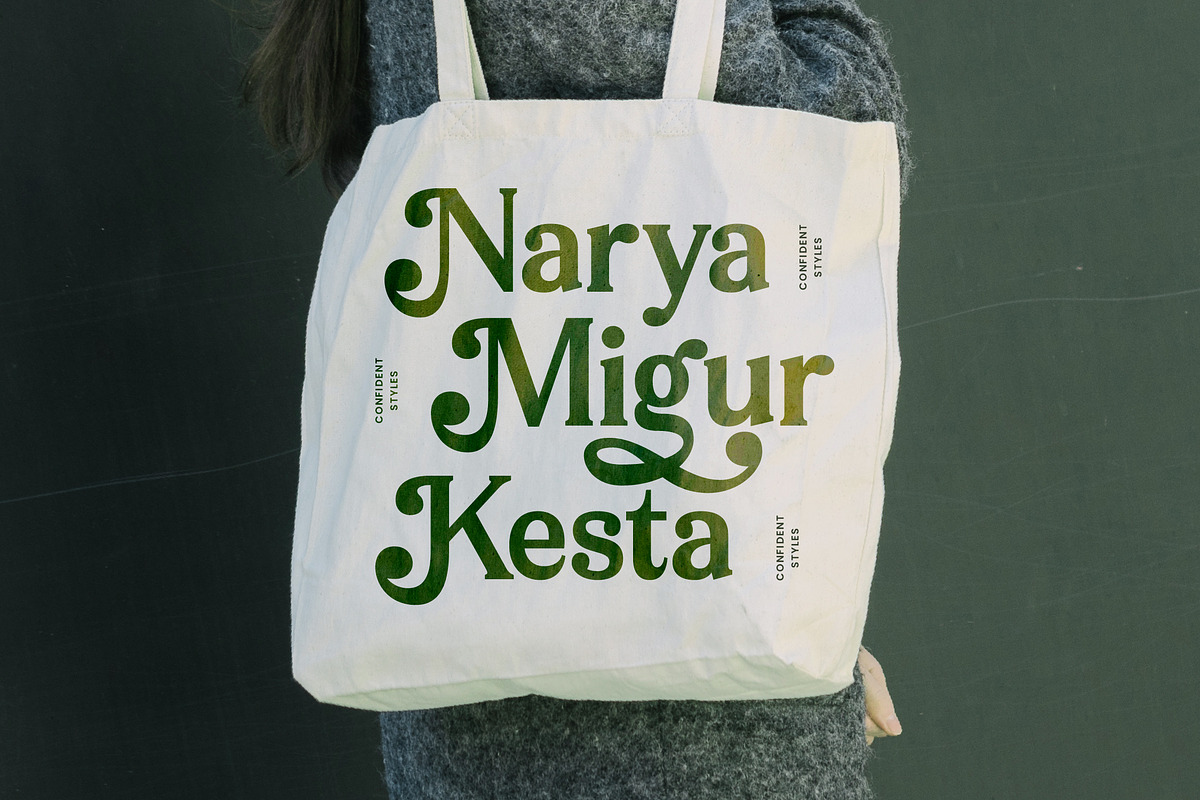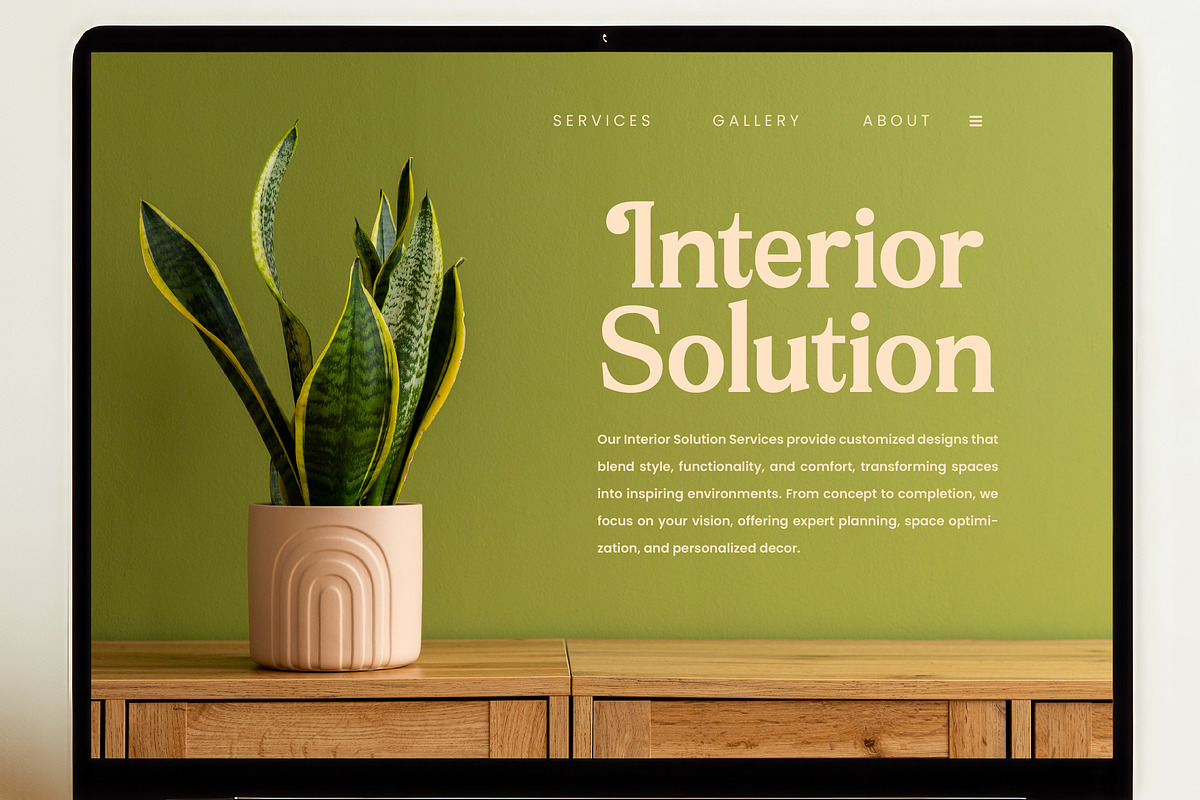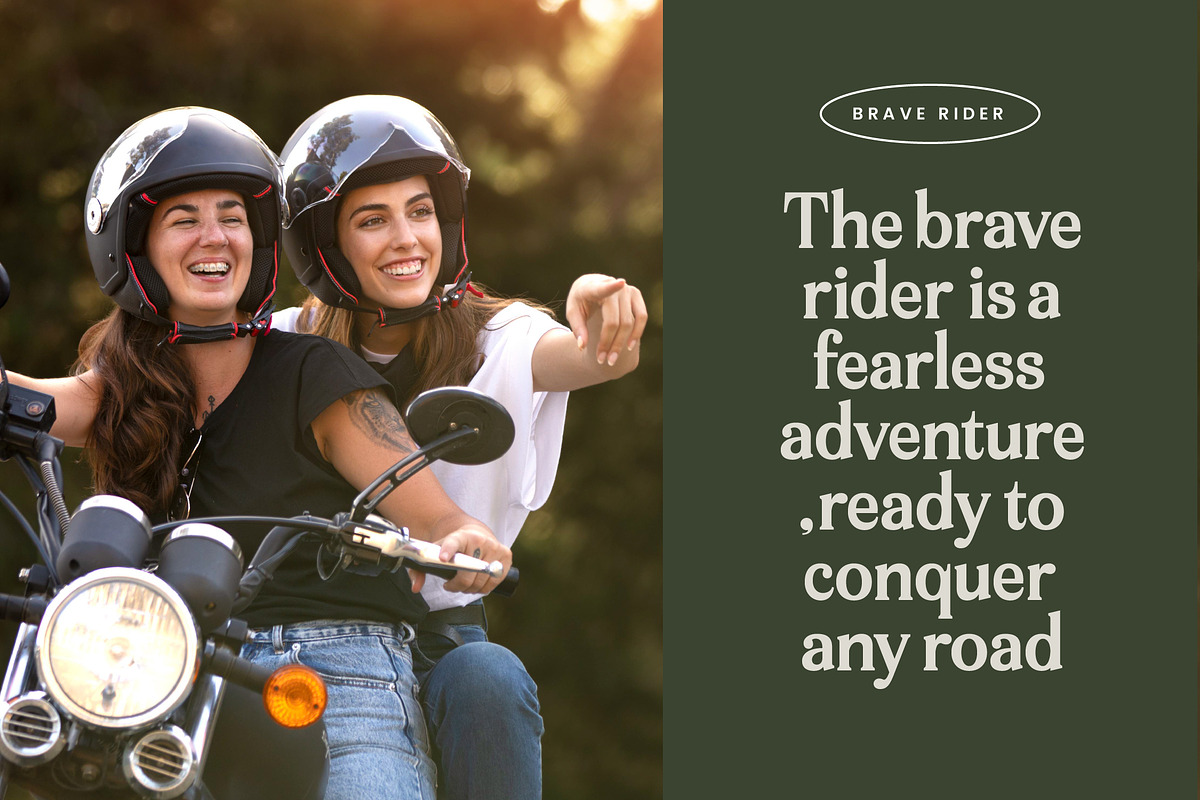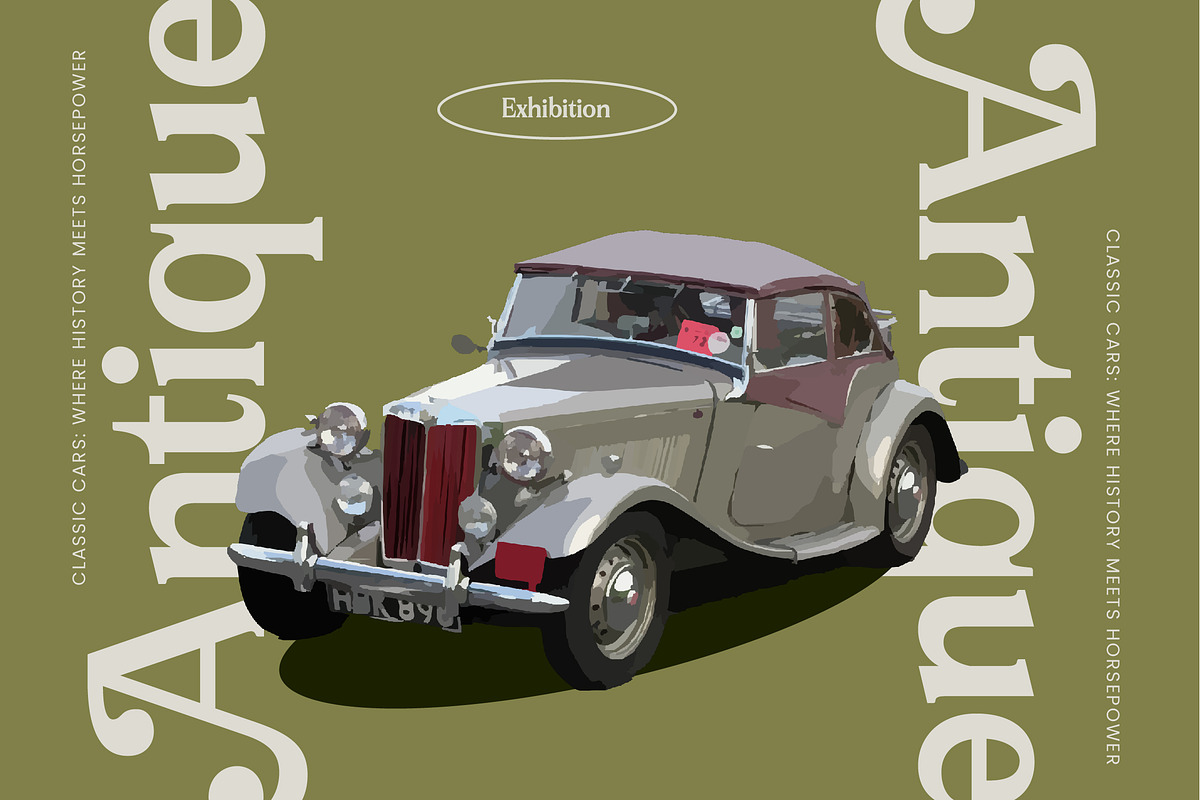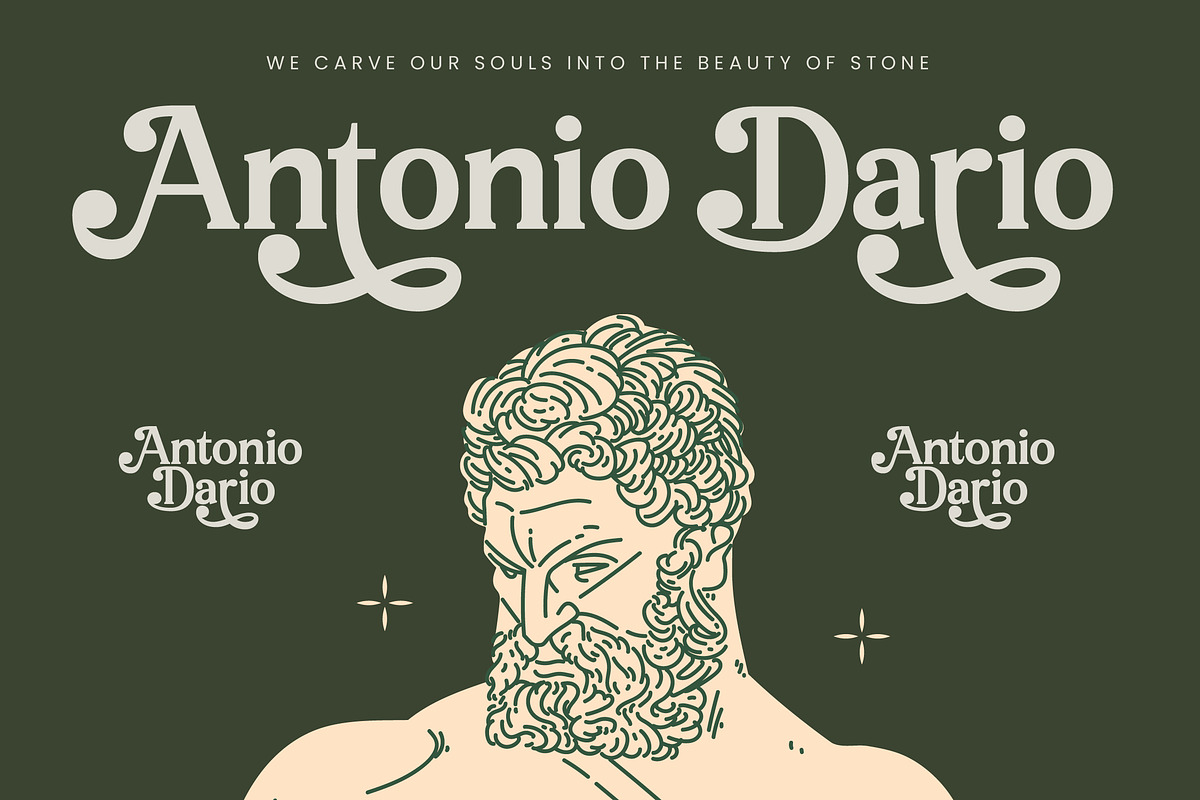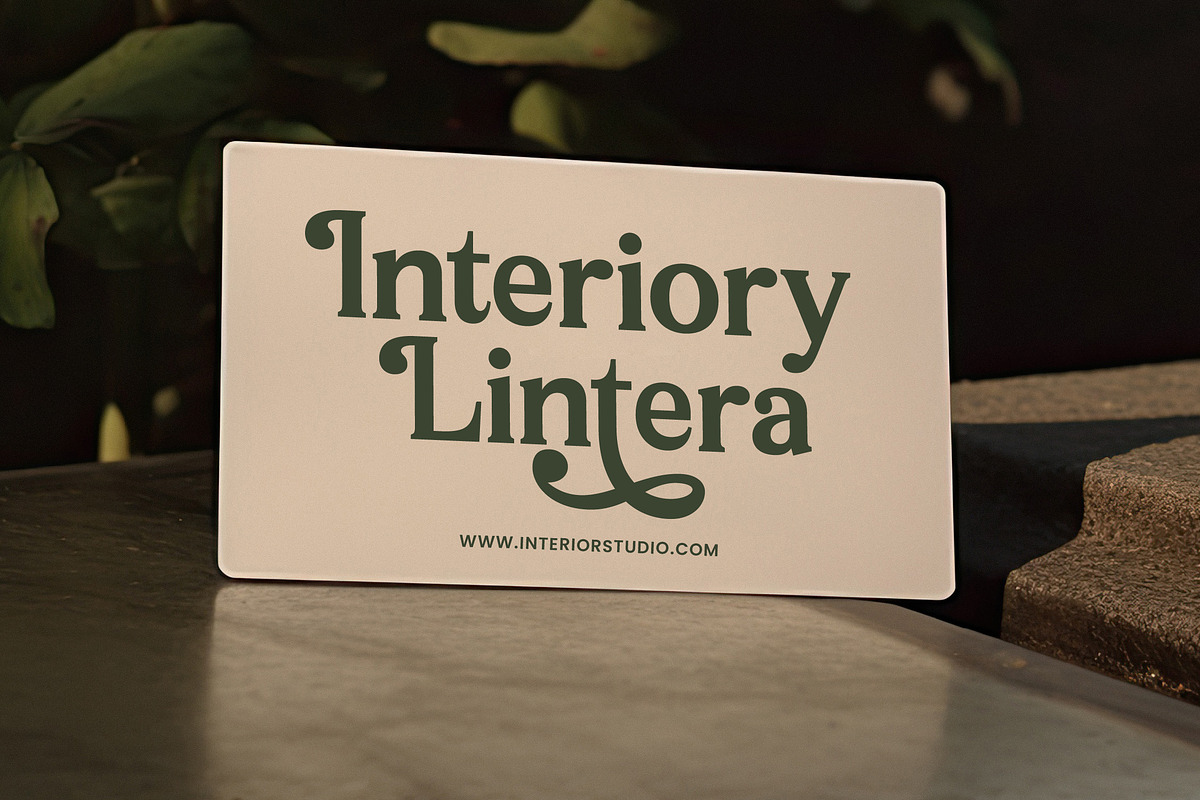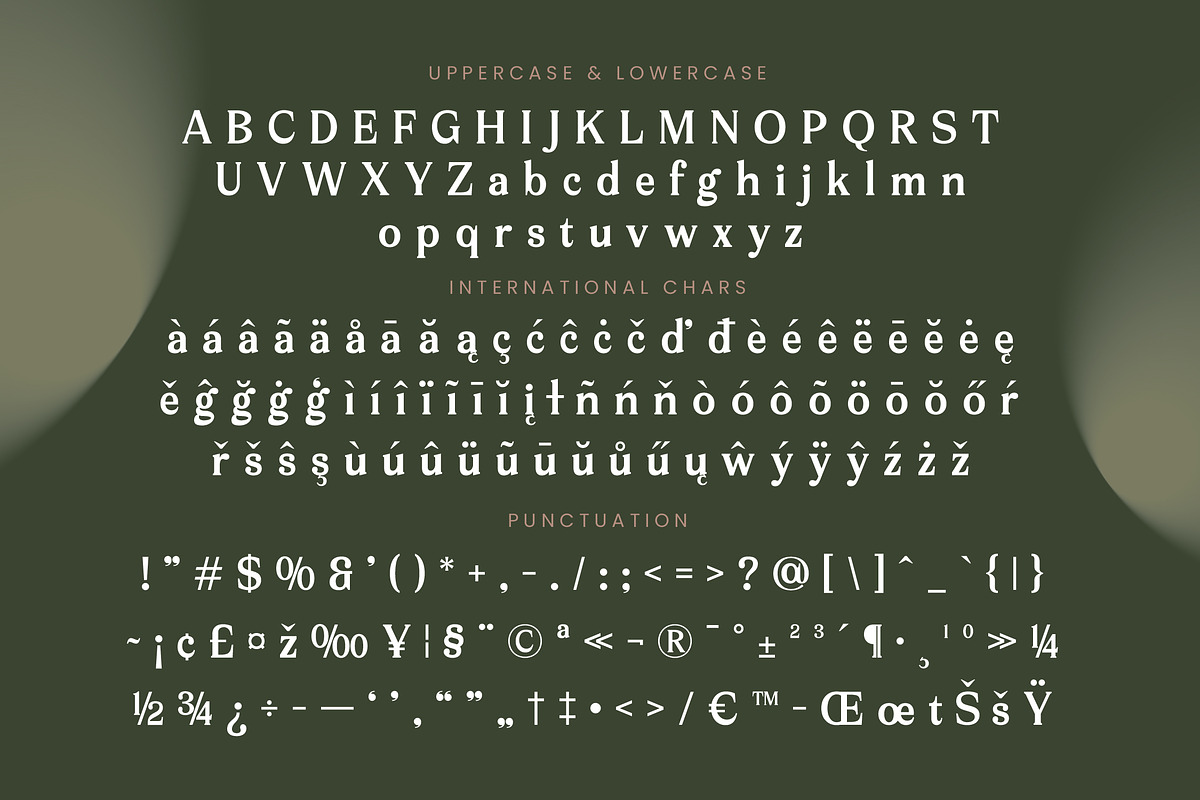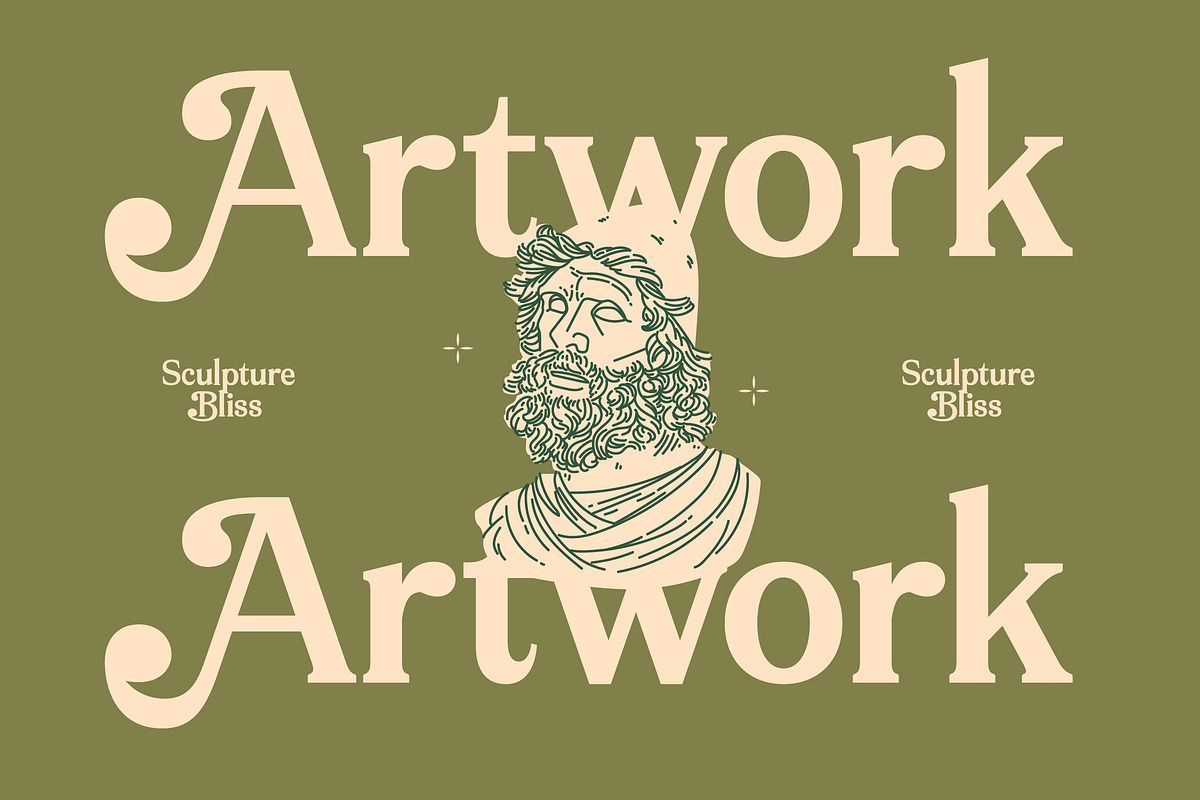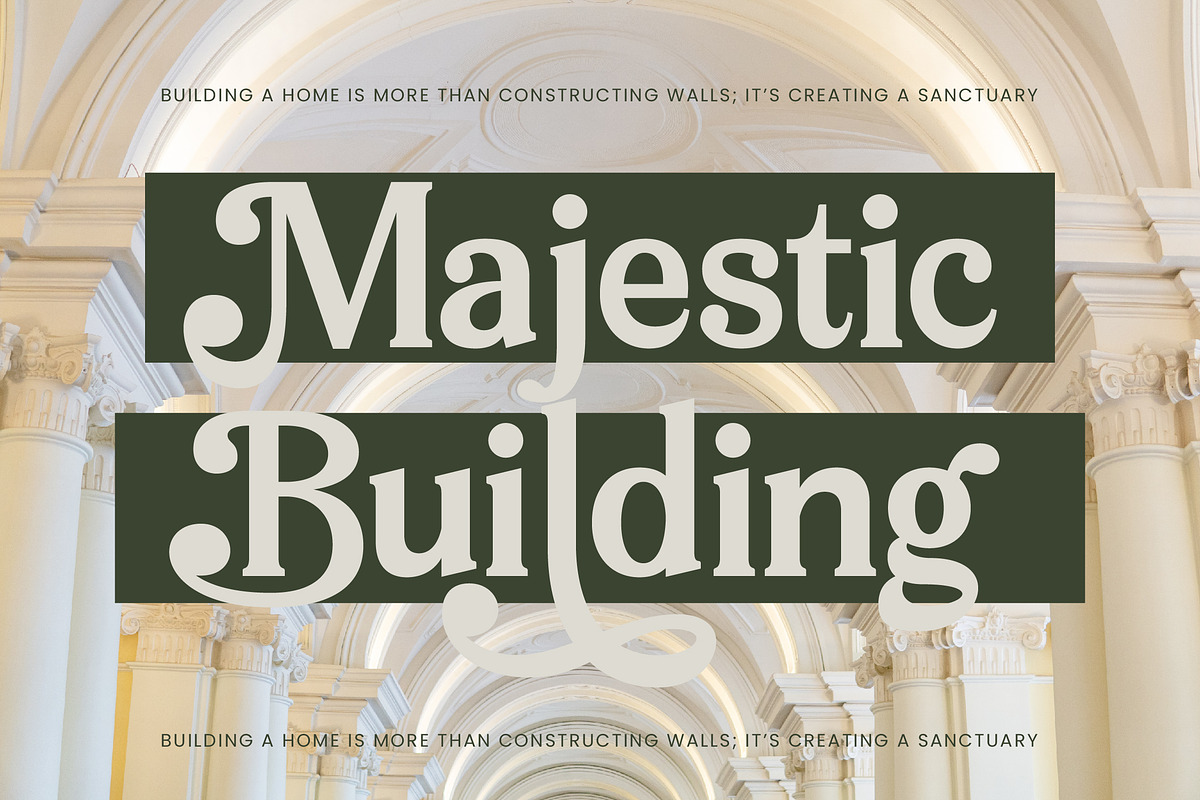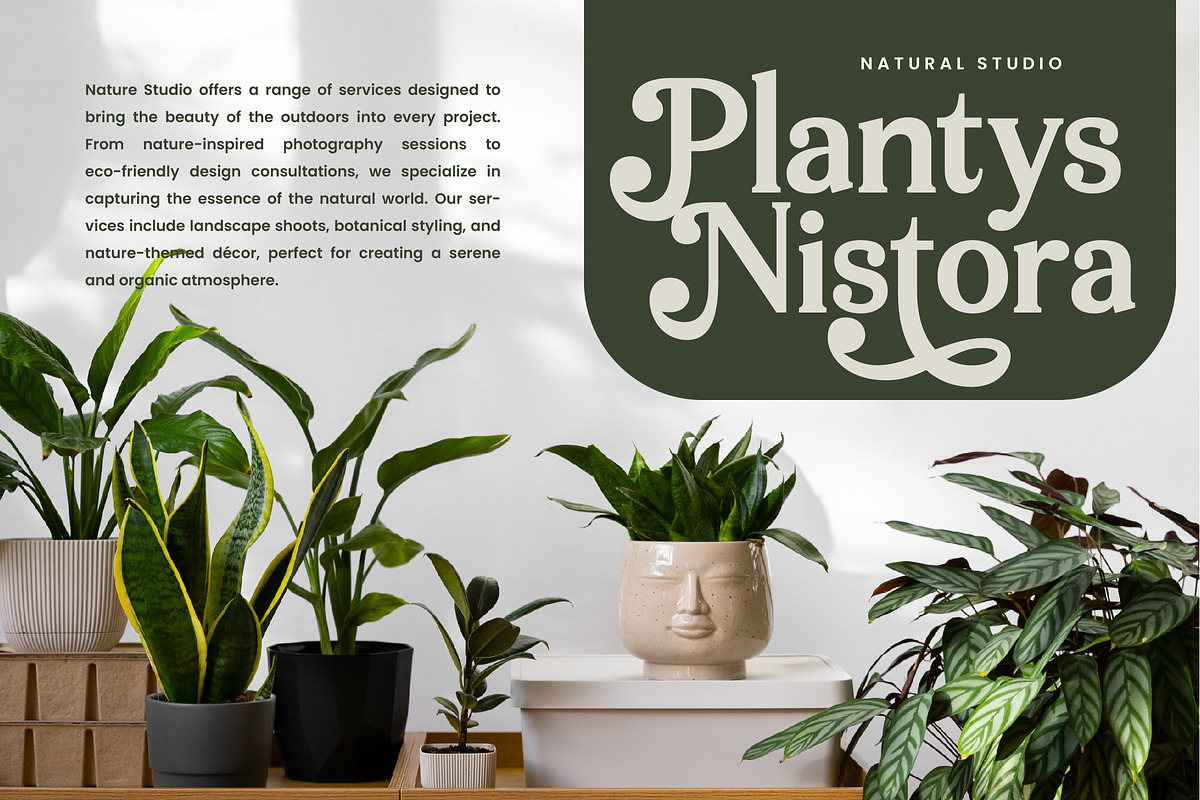
Arguys Regret Display Serif Font
Introducing Arguys Regret, a sophisticated display serif that dances between the haunting beauty of classical art and the sharp precision of modern design. This font invites an air of timeless mystery and refined elegance into every creative project it touches.
Drawing inspiration from the dramatic chiaroscuro of Renaissance paintings and the melancholic grace of vintage literature, this typeface was crafted to tell a story. Its name evokes a sense of poetic longing, mirroring the fluid, organic strokes that balance the weight of traditional serifs with contemporary flair.
Defined by its modern serif display and high-contrast serif architecture, this typeface is a masterclass in luxury typography. It commands attention with a deliberate branding impact, making it the quintessential editorial font for those who refuse to settle for the ordinary.
Perfectly aligned with the modern serif trend, this typeface addresses the growing demand for character-driven typography that feels both nostalgic and forward-thinking. It stands at the forefront of editorial display fonts, offering designers a versatile tool to create memorable, high-end visual identities.
This typeface excels in logo design and high-end branding, where its unique character can truly shine across editorial layouts and luxury packaging. From romantic wedding stationery to avant-garde fashion lookbooks, it brings a touch of artisanal craftsmanship to every medium.
To ensure maximum versatility, the font includes a rich collection of 7 ligatures and 43 alternates that allow for custom typographic flourishes. Full support for international characters and multilingual glyphs makes it a global powerhouse, while elegant swashes add that final, decorative touch.
- Ligature 7 Alternate 43